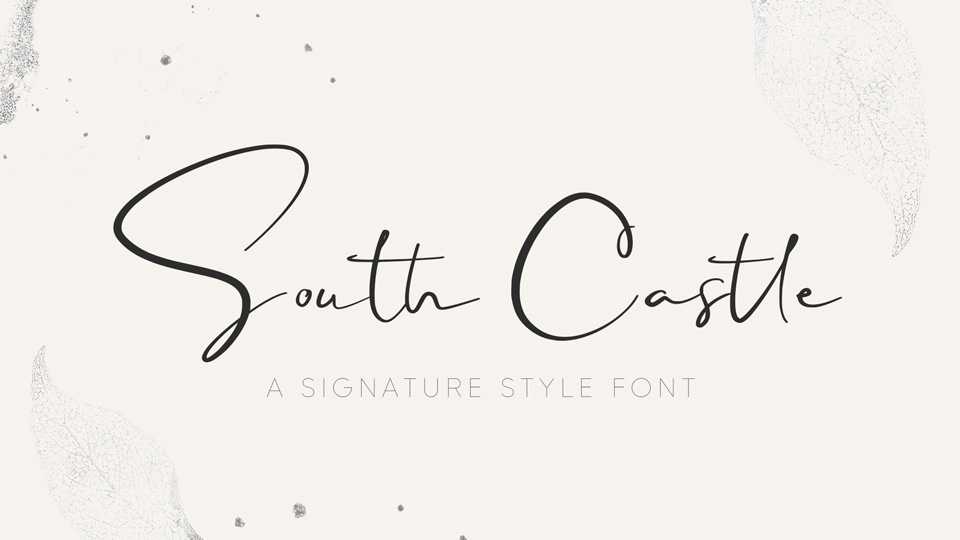
Download South Castle font, a stylish signature typeface. Inky and expressive yet readable and functional, South Castle is designed to look perfect fit for signature logos and branding.